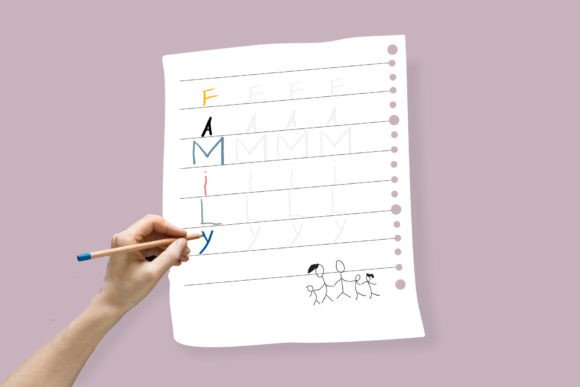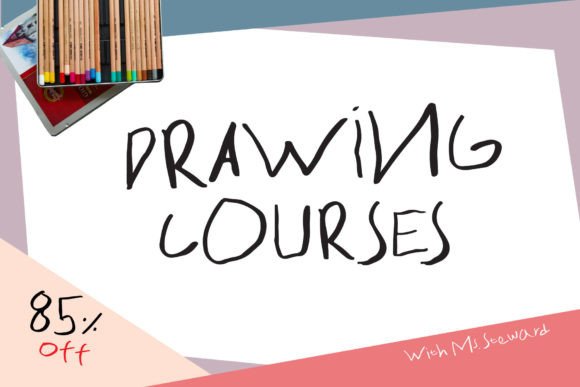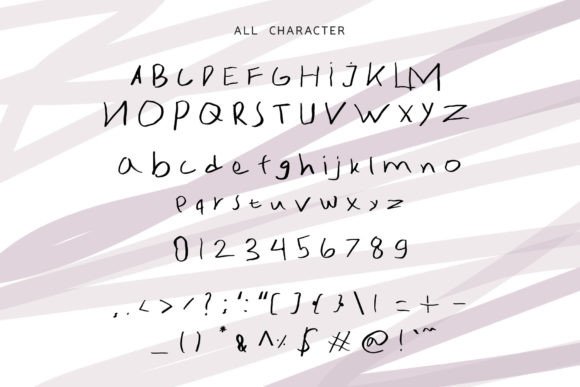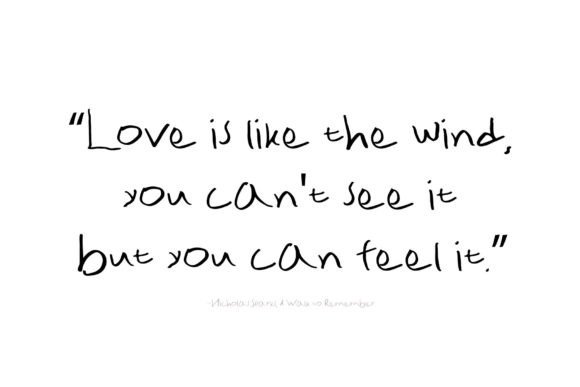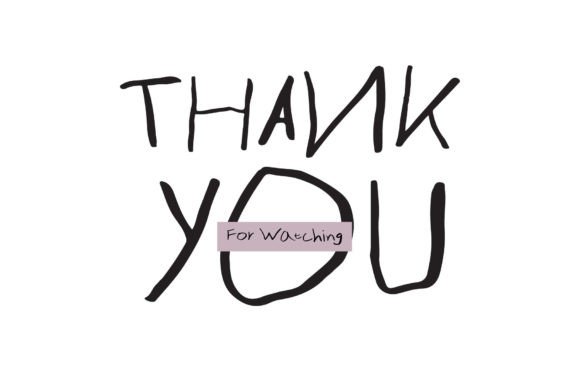
Introduction to Childstype Font
Childstype is a quirky handwritten font that replicates the naive writing of a child.
Add it to your crafty projects and enjoy the results .
Key Features of Childstype Font
Why Choose Childstype Font?